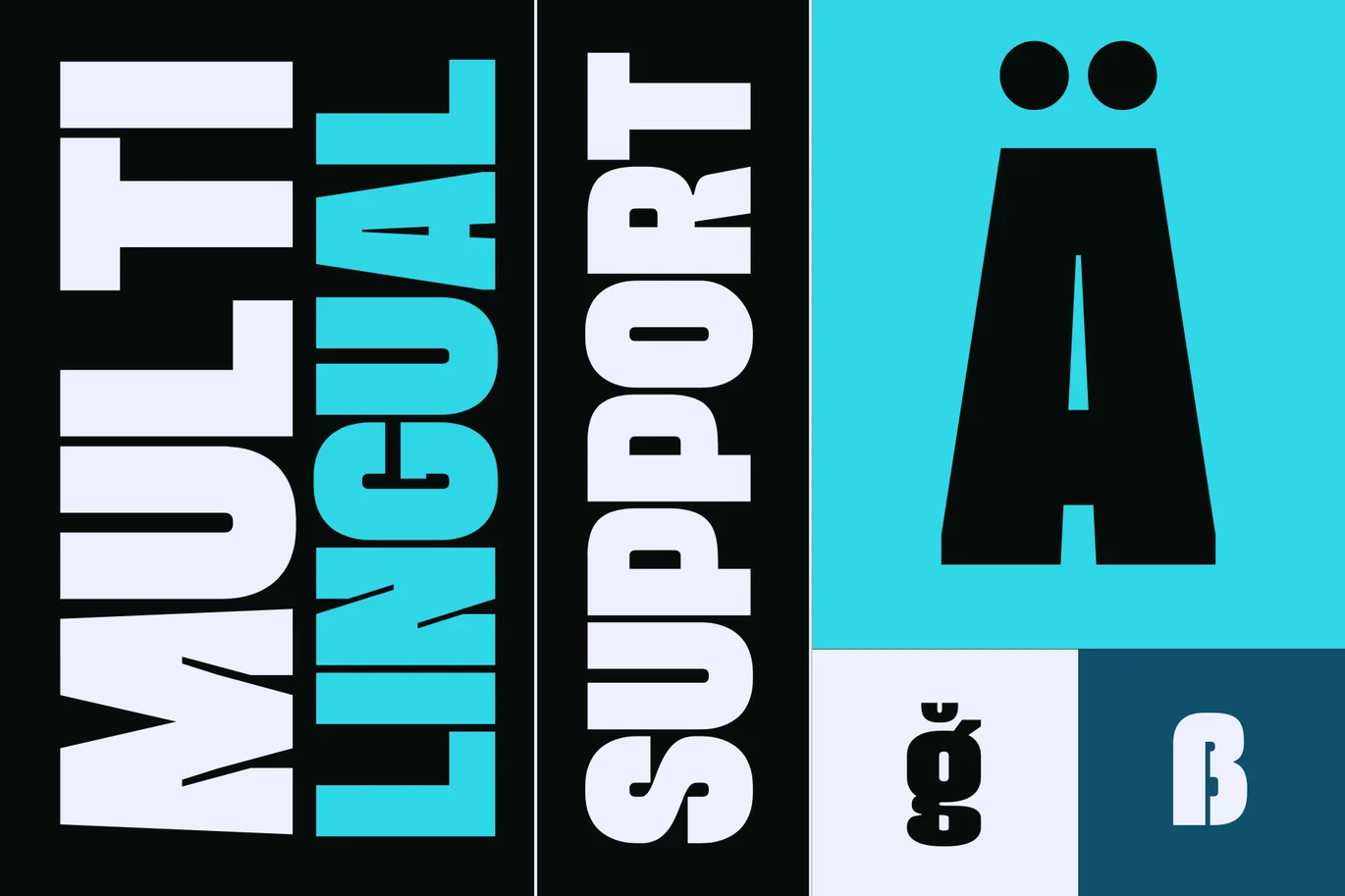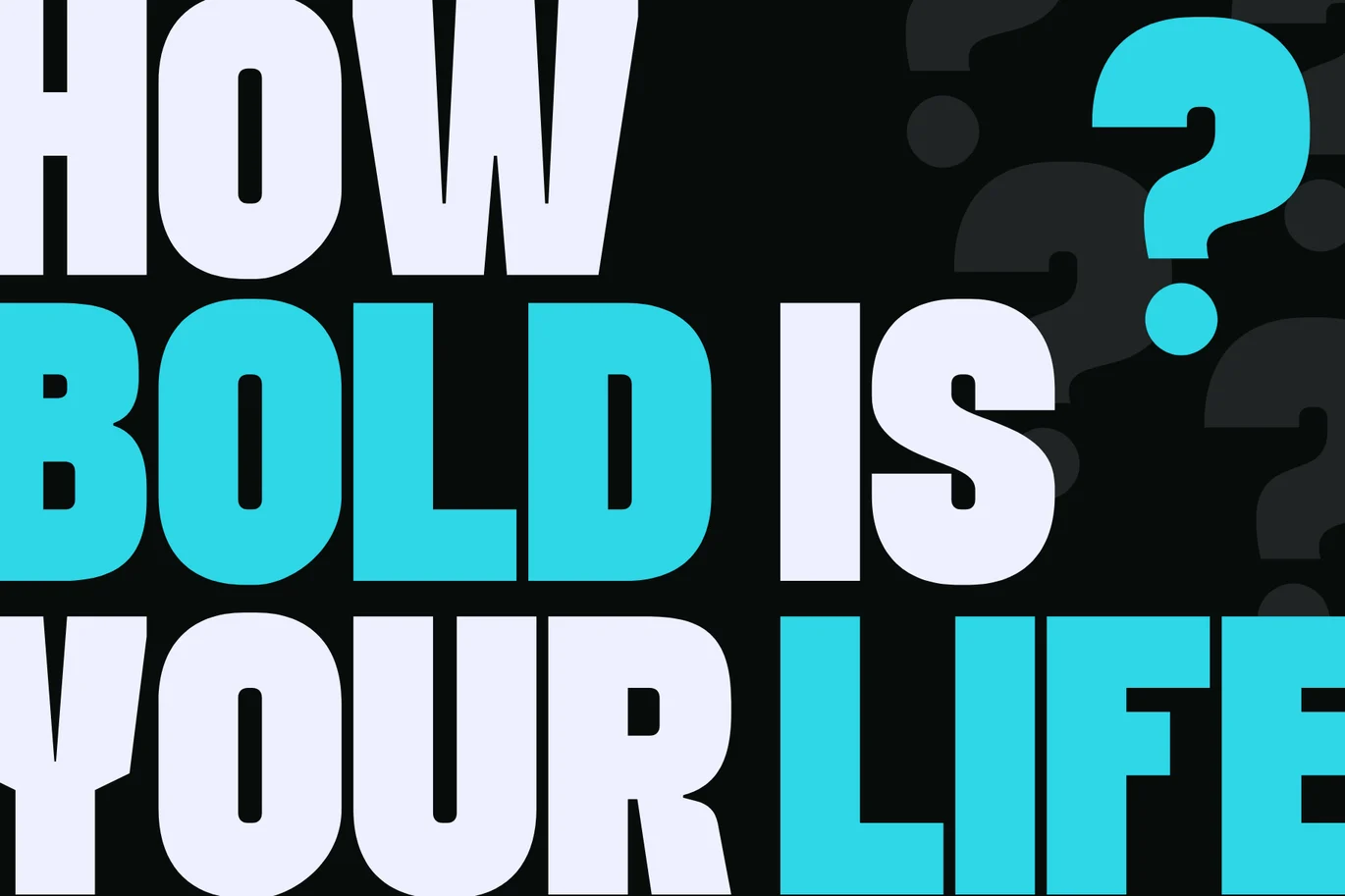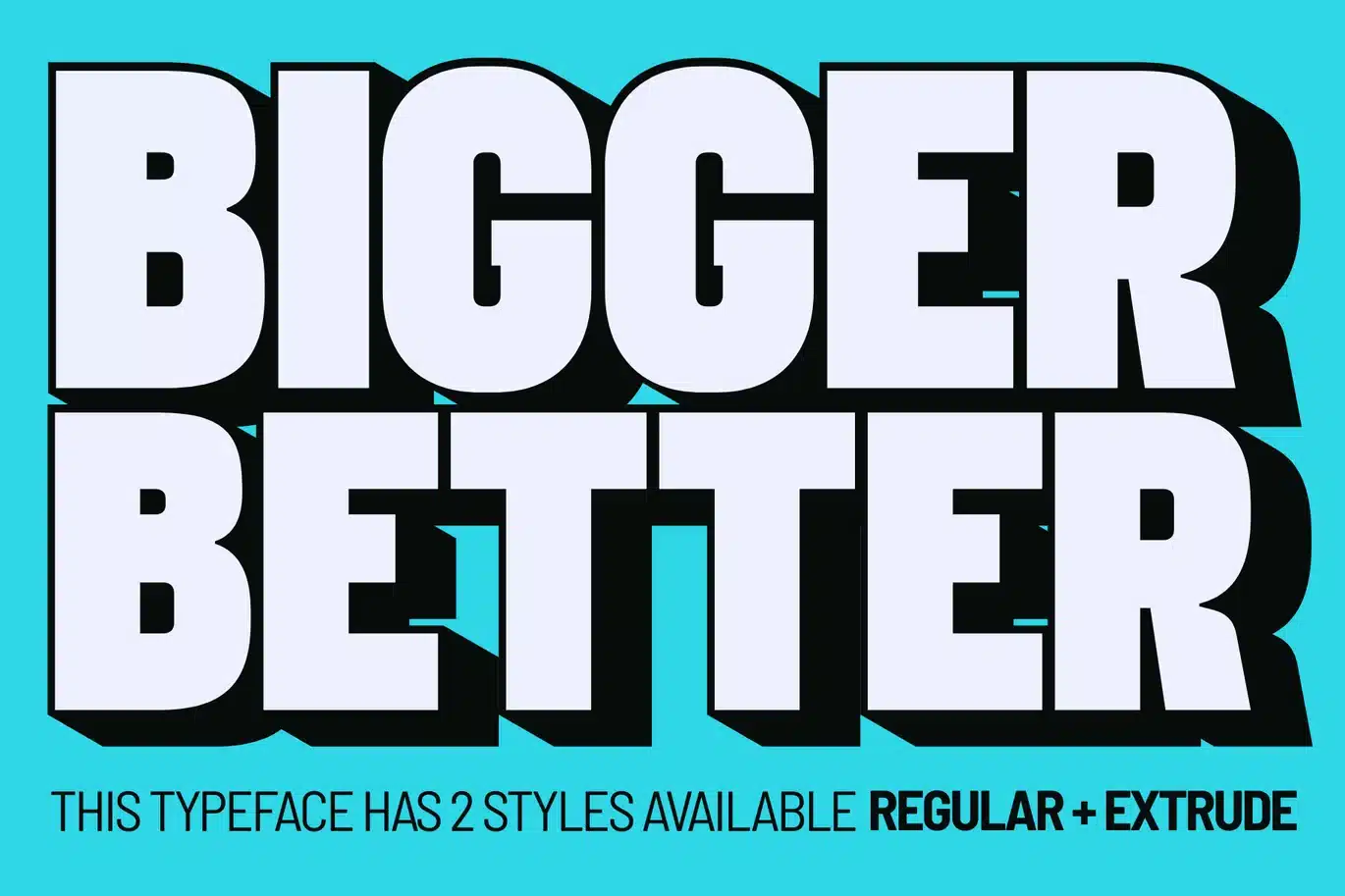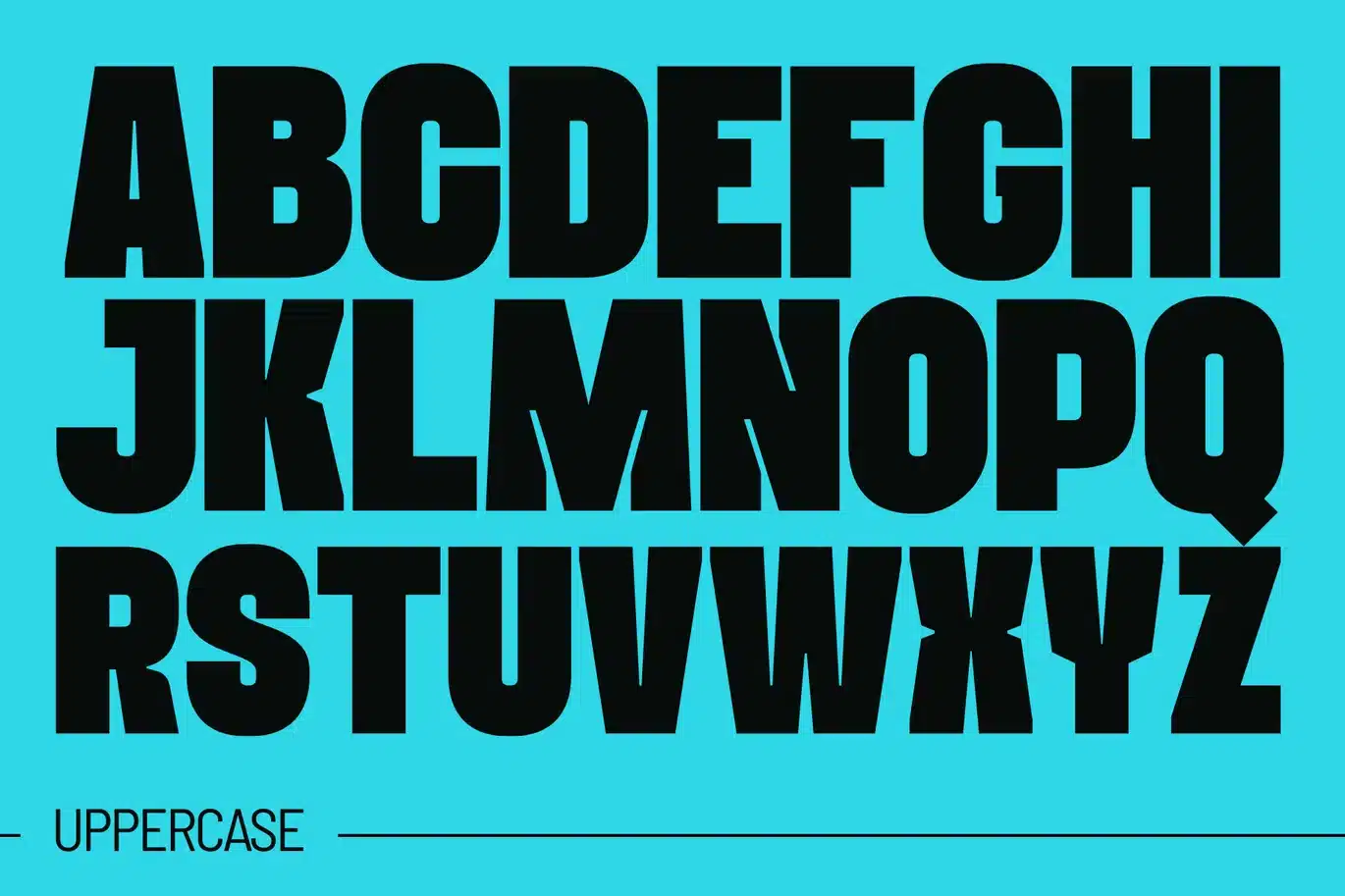
Morxin Bold – Modern Logo Font
Morxin Bold offers beautiful typographic harmony for a diversity of design projects, including logos & branding, social media posts, advertisements & product designs.
What you get : Regular + Extrude